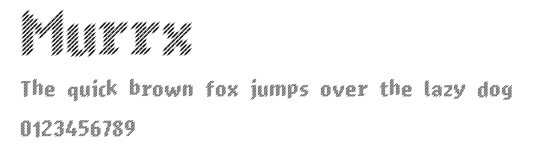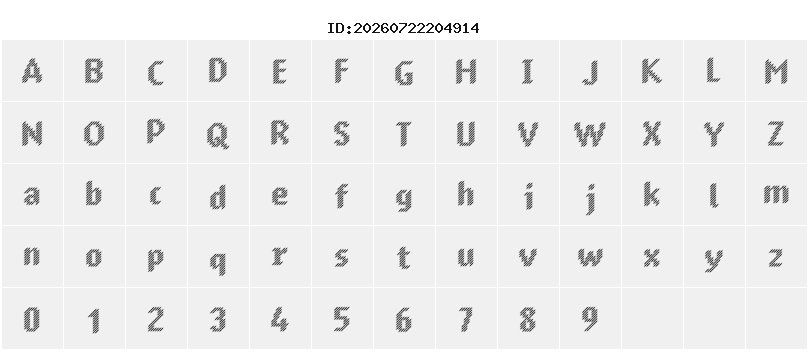
• Font Name: Murrx
• Designer: Peter Wiegel
• Manufacturer: Peter Wiegel
About Murrx.ttf
Murrx.ttf is a modern, elegant sans-serif font designed for ultimate readability and visual harmony. Perfect for branding, headlines, web design, and print materials.